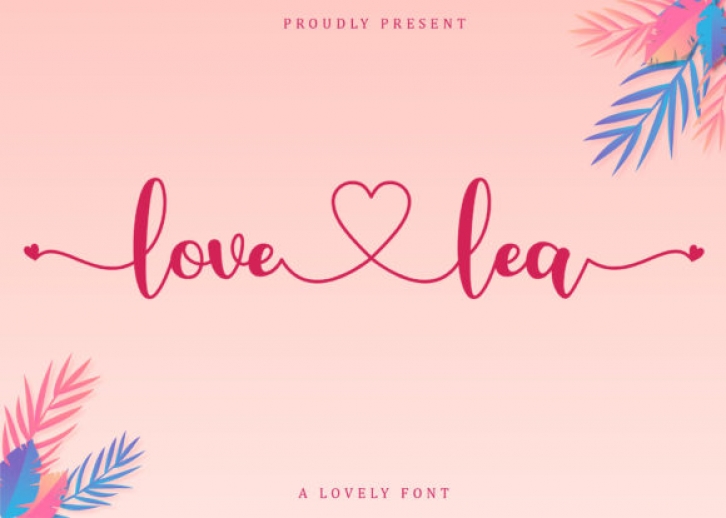
Love Lea is a lovely calligraphy font.
It has beautiful and well balanced characters and as a result, it matches a wide pool of designs. Add it to your most creative ideas and notice how it makes them come alive!